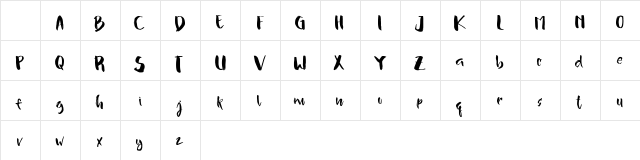
valentine season is a composed and adaptable typeface that performs quietly and consistently across a wide range of design contexts.
Pro Tip: Use valentine season in both headline and body roles to test its range before committing to a single application.